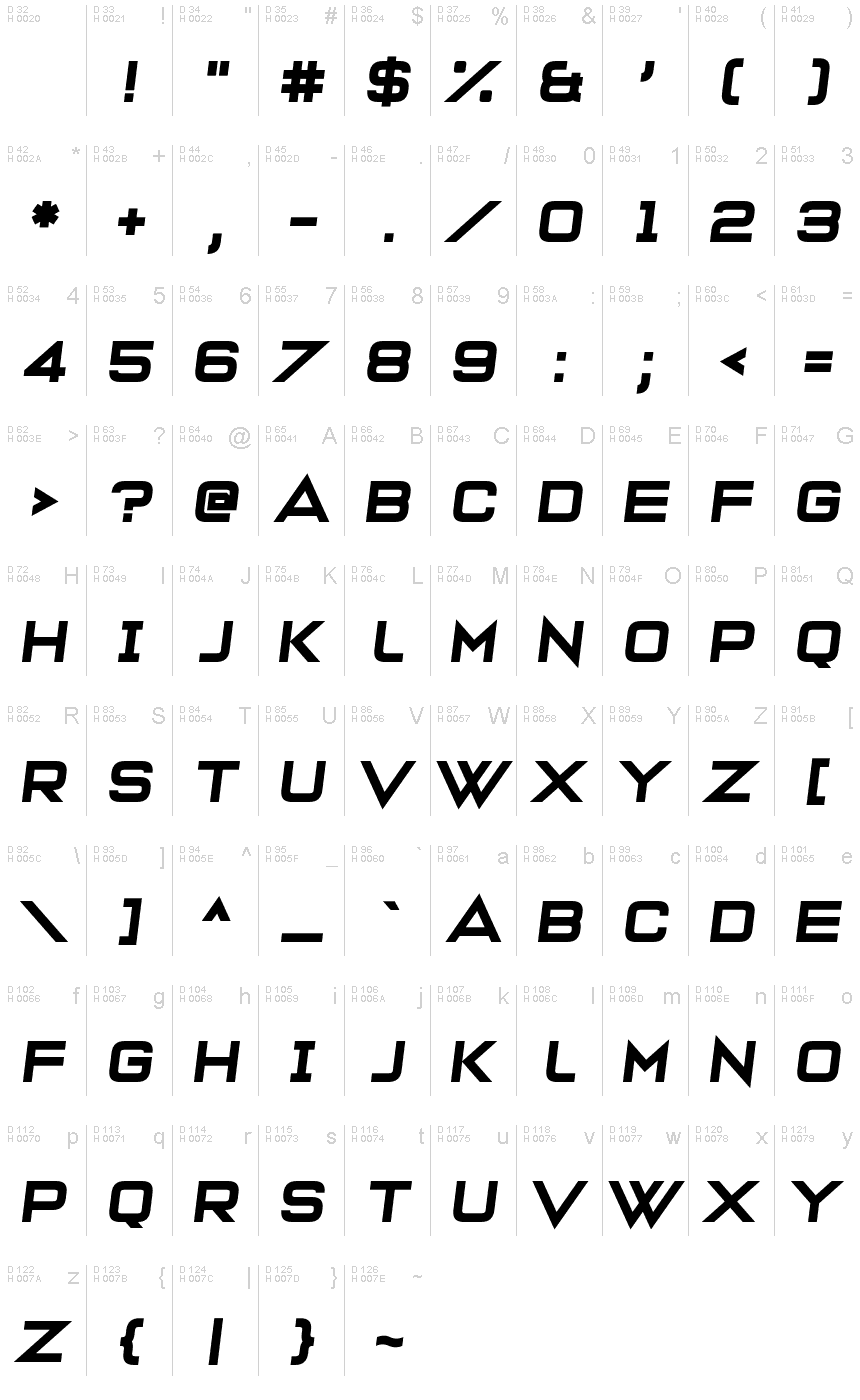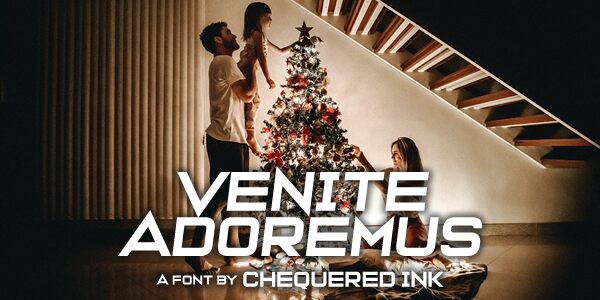
Venite Adoremus
Venite Adoremus, designed by Chequered Ink, stands out as a font with a distinctively modern and futuristic aesthetic. Its sharp angles and clean lines evoke a sense of cutting-edge technology and forward-thinking design. These characteristics make Venite Adoremus an excellent choice for projects that require a display font with impact, such as branding for tech startups, promotional materials for innovative products, or titles in science fiction media.
The sleekness of the typeface is immediately apparent in its visual presentation—the use of bold strokes combined with precise geometric shaping gives it both presence and readability. This combination ensures that even at larger sizes, which is typical for display fonts, Venite Adoremus maintains clarity and visual punch.
Whether you're designing the next blockbuster movie poster or crafting an eye-catching web banner, Venite Adoremus offers versatility while delivering a style that is unmistakably contemporary. Its potential applications span from digital platforms to print media where a statement-making font is essential.